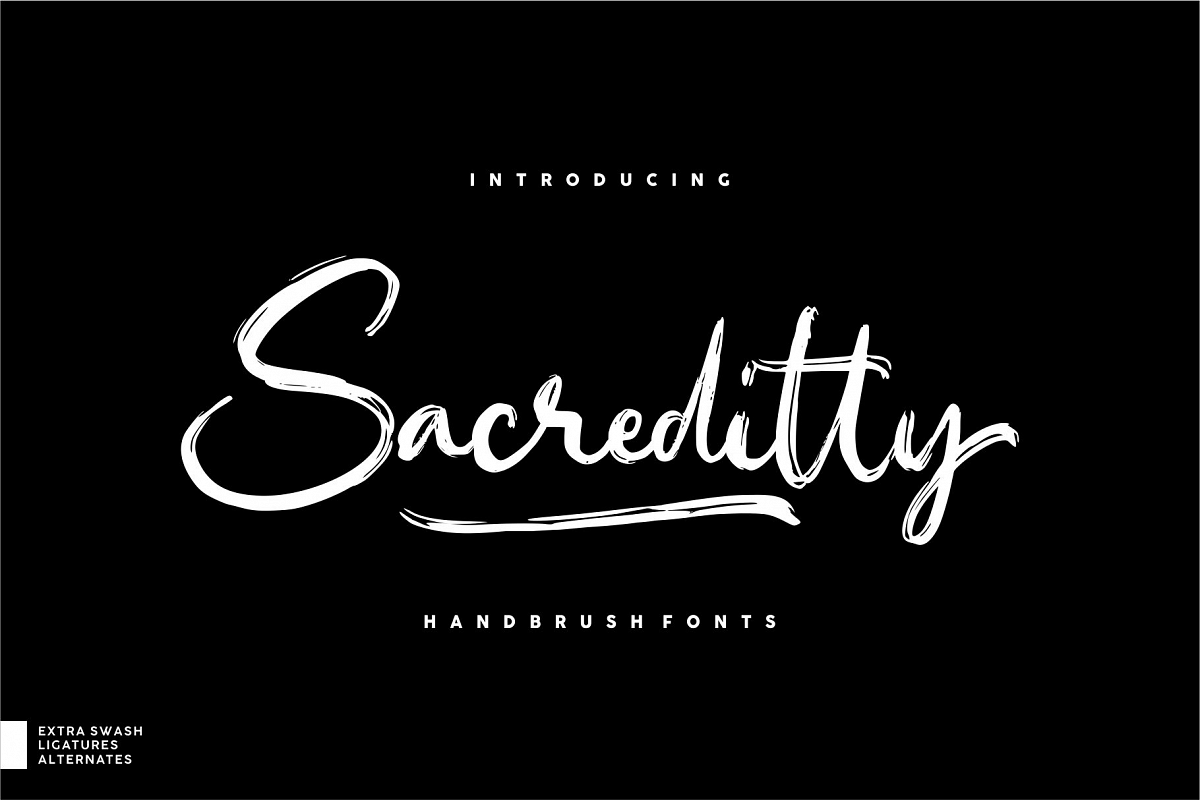
Sacreditty
Introducing Sacreditty with hand-brush style!
Sacreditty combines attractive curves with a fresh urban edge; delivering a stylish script which is guaranteed to add an eye-catching appeal to your logo designs, brand imagery, handwritten quotes, product packaging, merchandise & social media posts.What includes:
• Uppercase, Lowercase, Stylistic Alternates, & Ligatures
• EXTRA SWASH
• Detailed dry brush